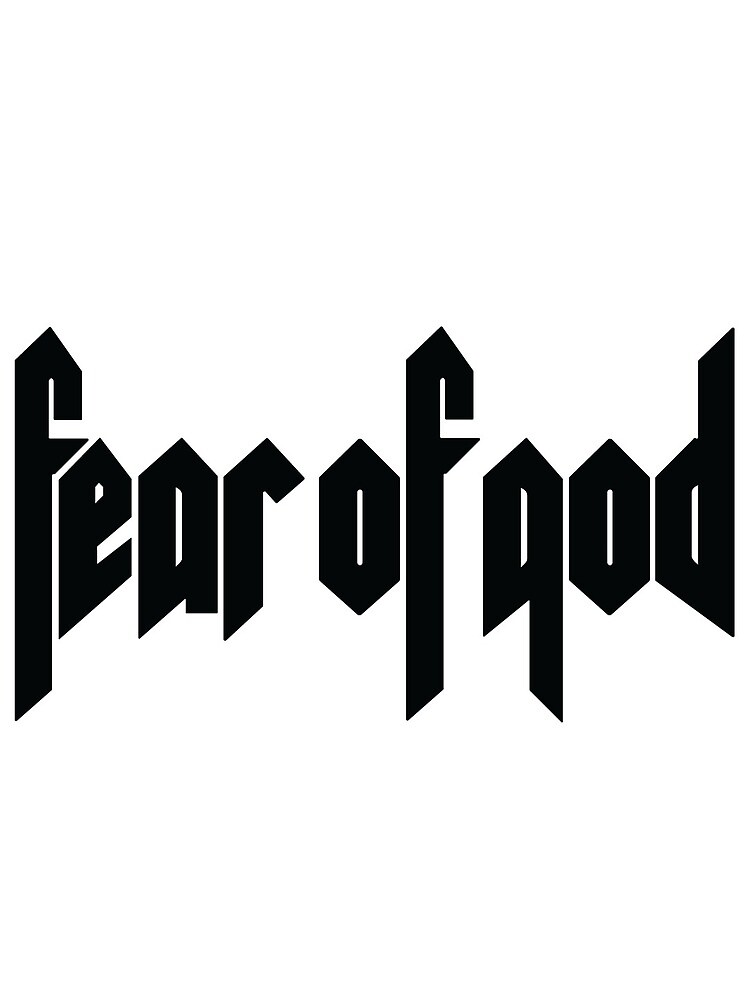
Fear Of God F Font
Fear of god f font. Dari sejak itu font ini sangat populer sekali dan sering di gunakan untuk membuat artikel. There are a couple different fonts used there. Fear of god (ch), discography, line, up, biography.
Chữ fear of god của fake nhạt và mảnh hơn. The name is only found in only. Gor has gracefully form lines and pleasant proportions.
Kostenlose schriftenn haben oft nicht alle buchstaben und zeichen und keine kerningpaare (avenue ↔ a venue, tea ↔ t ea). Fear of god font name pls. Gor type was born from a one letter:
Authenticate the “essentials” text on the front side of your fear of god essentials hoodie. The special charm of this font comes from a combination of narrow and wide letters, rounded letters, which is creating a lively and original character. 37 fear of god logos ranked in order of popularity and relevancy.
Ultra slim and thin profile. Inspired by vintage collegiate and military sweats, finished in an elegantly sun faded wash and the latest variation of the fg logo in a classic military inspired stencil typeface. Nama font vans x fear of god download reviewed by nama font on desember 18, 2017 rating:
Nama font vans x fear of god download. Fear of god font name pls. For instance the yeezus font is taken from the metallica logo, the vetements one comes from immortal, but in this case the fear of god font comes from the metal.
Jimin and v are rocking their basic tees too with jimin wearing a pique pocket tee worth rs 21.6k and v having on a perfect vintage tee worth rs 14k. Fear of god grays 3/4 sleeve sweatshirt. Fake fail font rõ rệt ở chữ s.